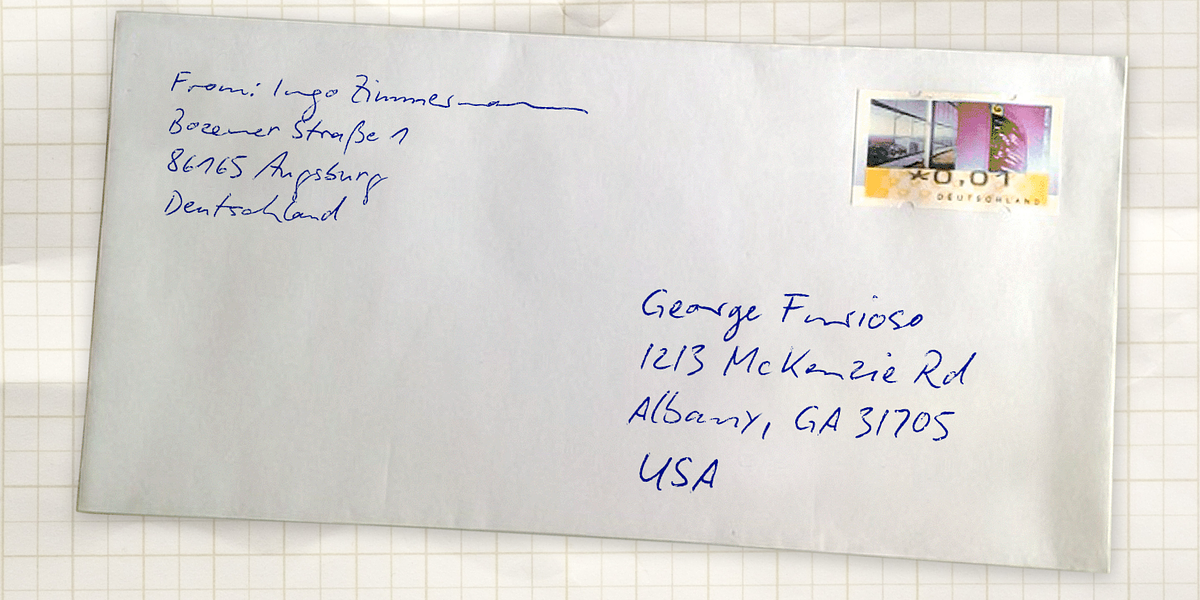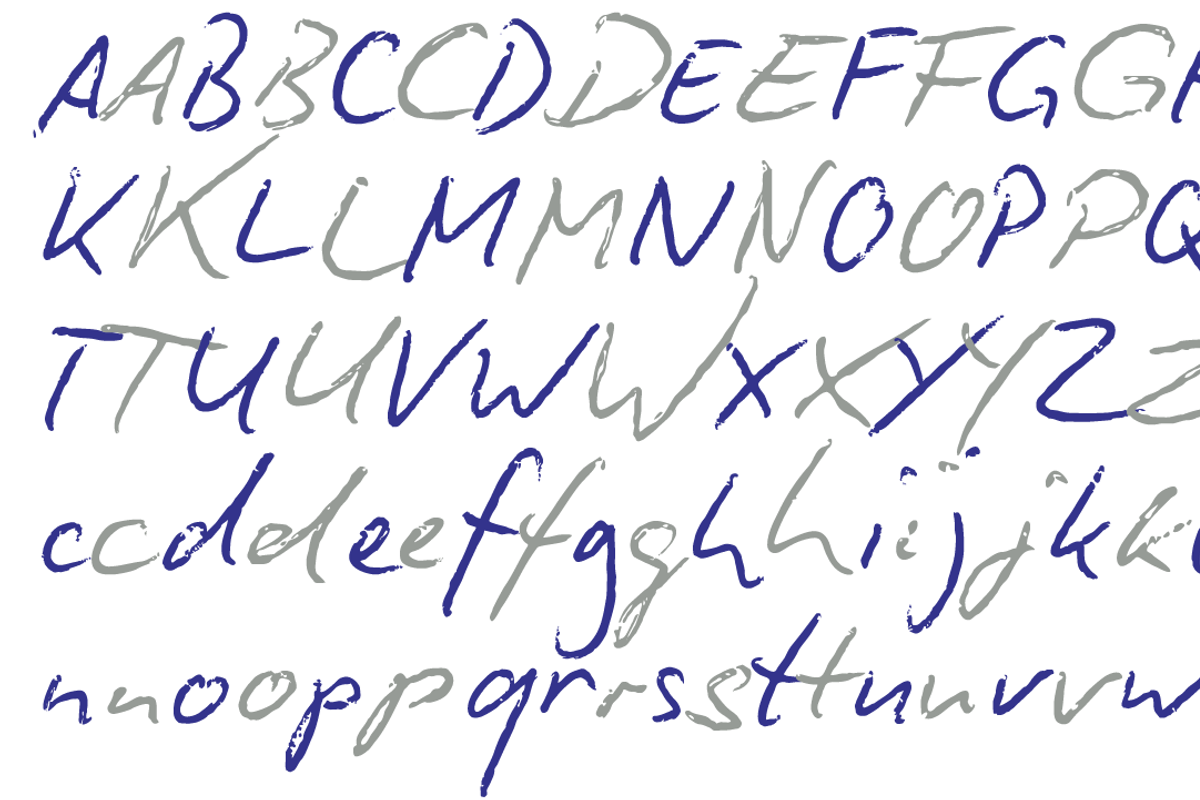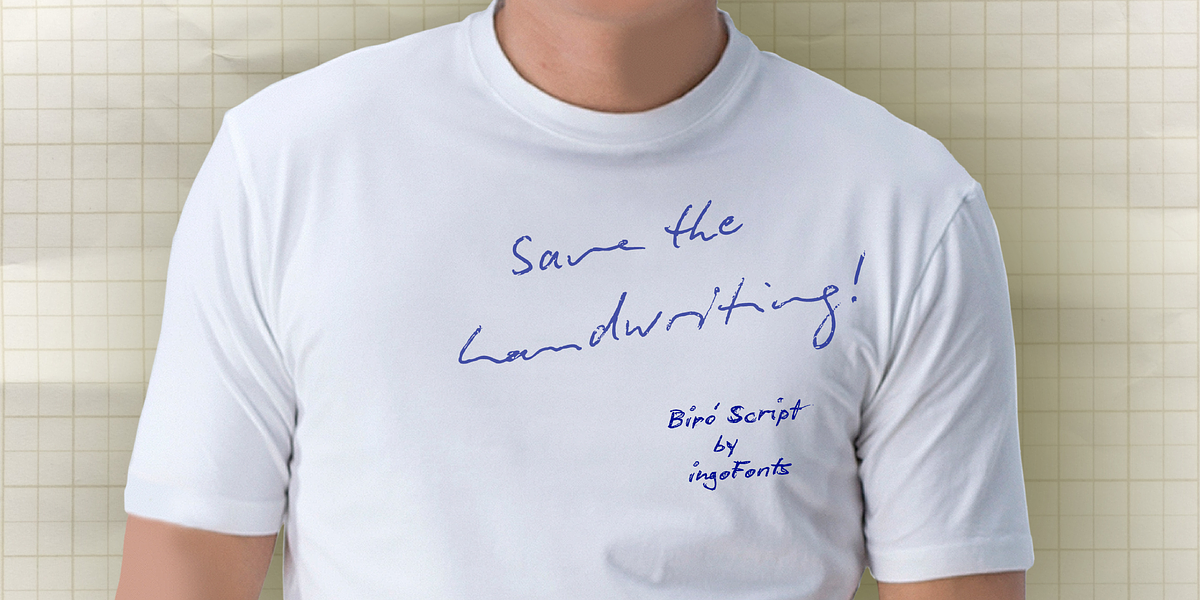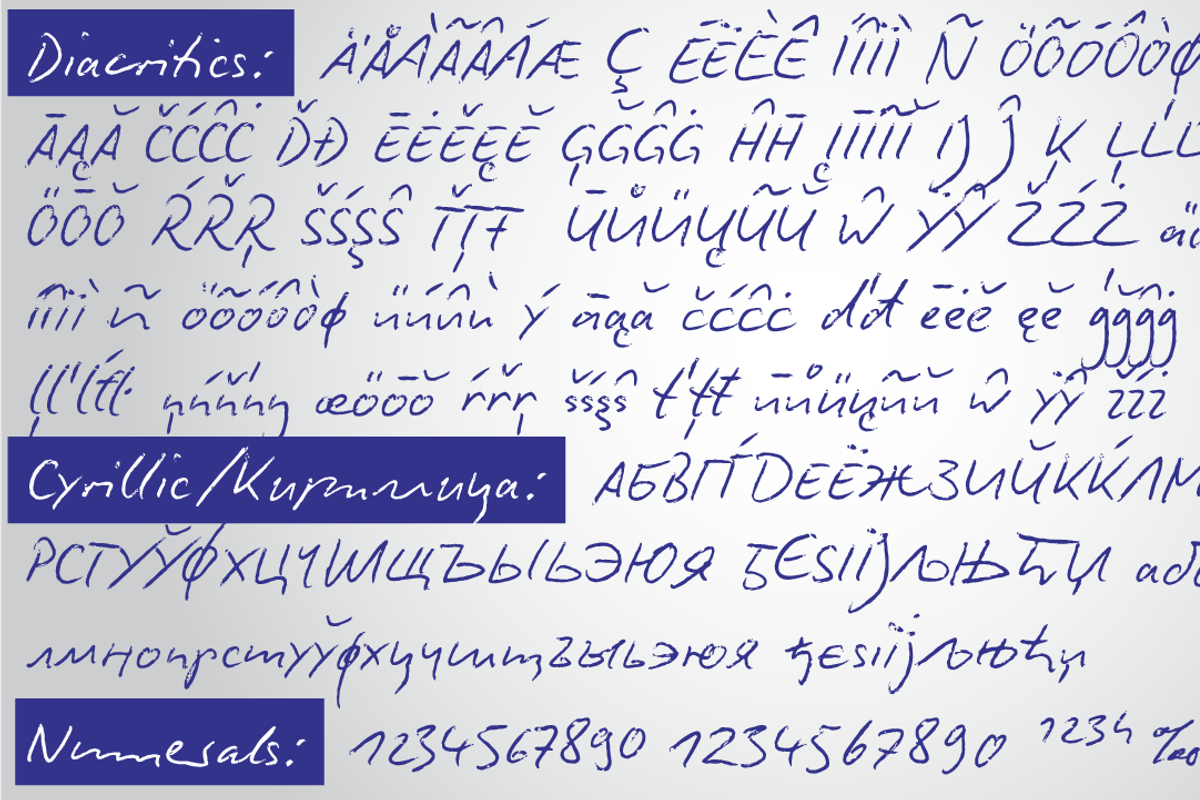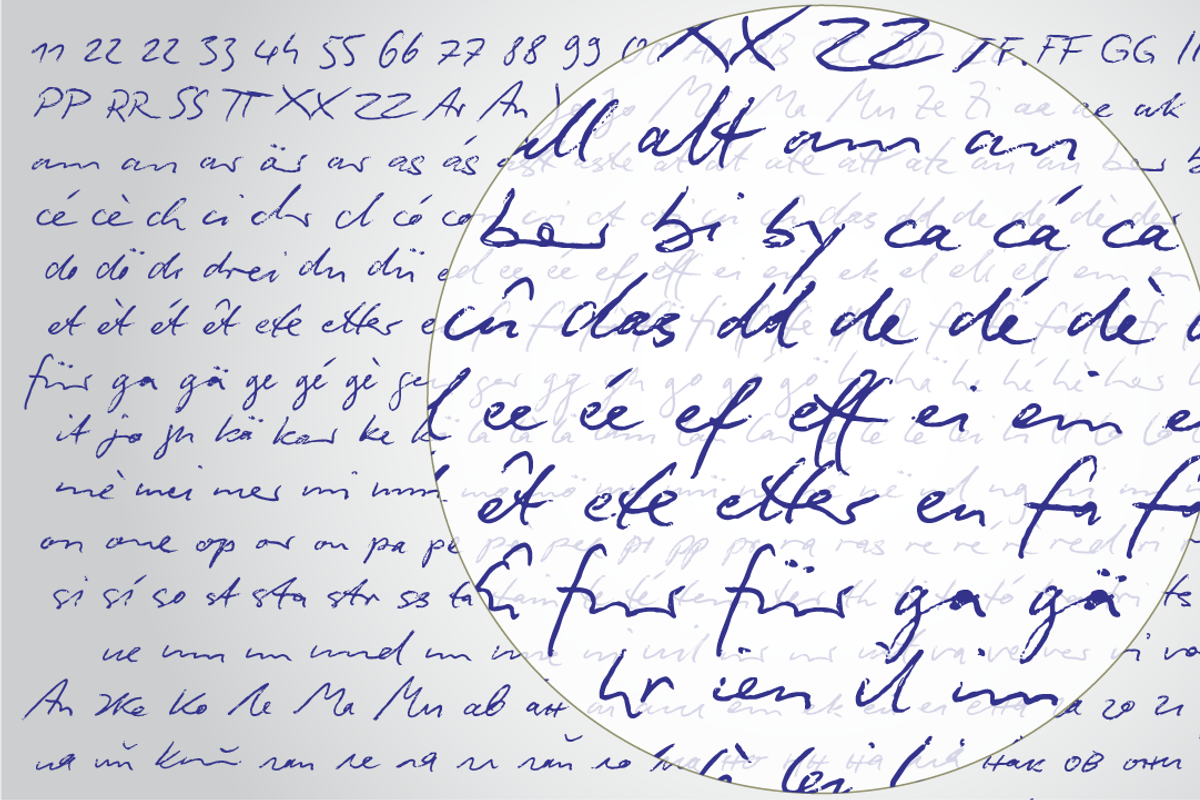
Biró Script Plus
Biró Script is designed to mimic authentic handwriting created with a ballpoint pen. It features over 300 ligatures for a truly unique and natural look. The font is most convincing at sizes between 18 and 22 points, where the stroke thickness closely resembles that of a real ballpoint pen.